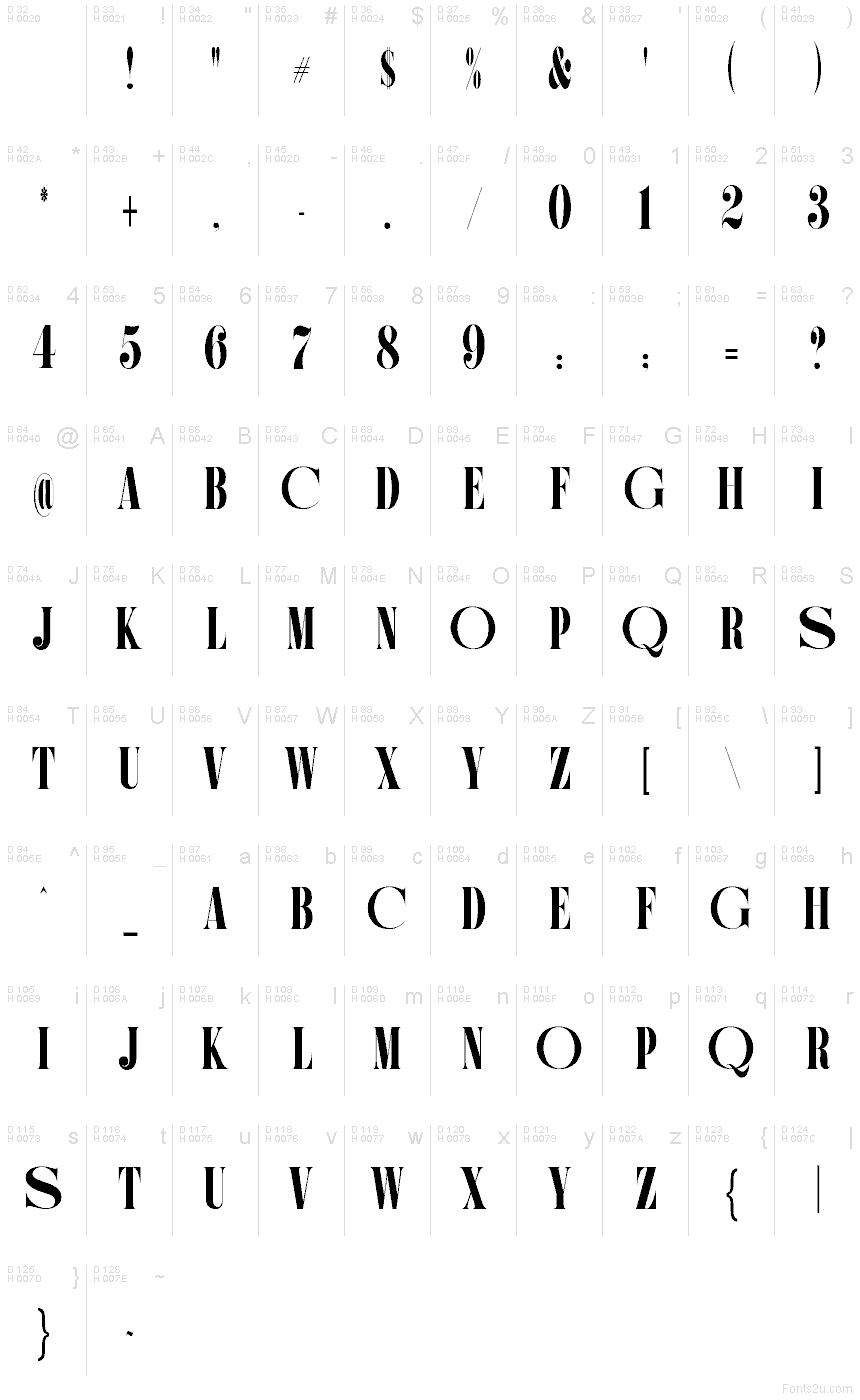
Jengky font by Graphicxell is a free serif typeface that thrives on drama. Thick, glossy verticals snap into fine hairlines, while knife‑edge serifs and sculpted ball accents give each word a couture finish. The spacing feels taut and deliberate, so headlines lock up with a confident, poster‑ready rhythm.
Using Jengky, you get instant polish for fashion branding, magazine mastheads, beauty packaging, event posters, luxury logos, and editorial titles. This free font shines when set large, where its crisp contrasts read like ink on glass. For body copy or captions, pair it with a restrained grotesk to let Jengky handle the spotlight.